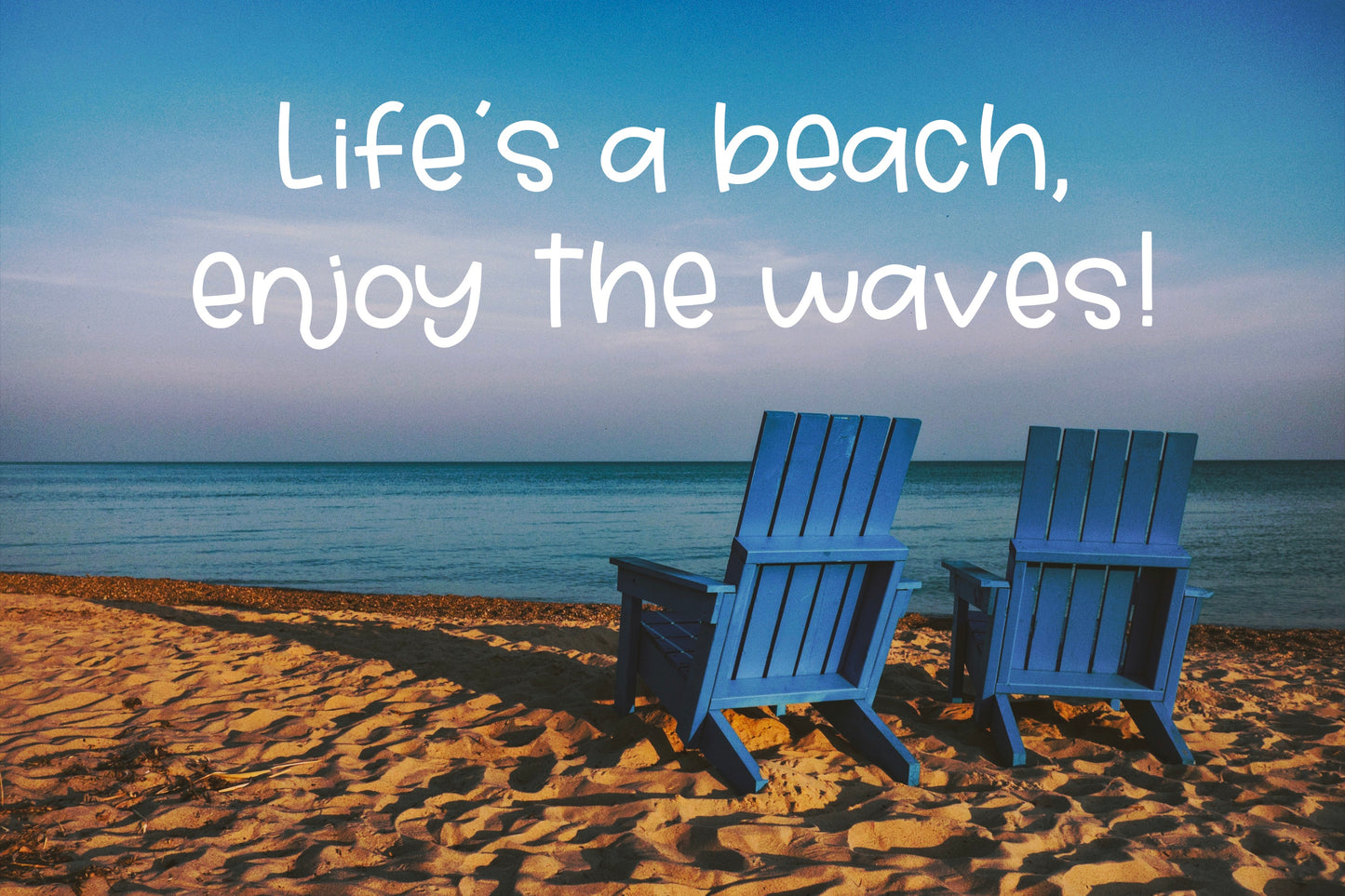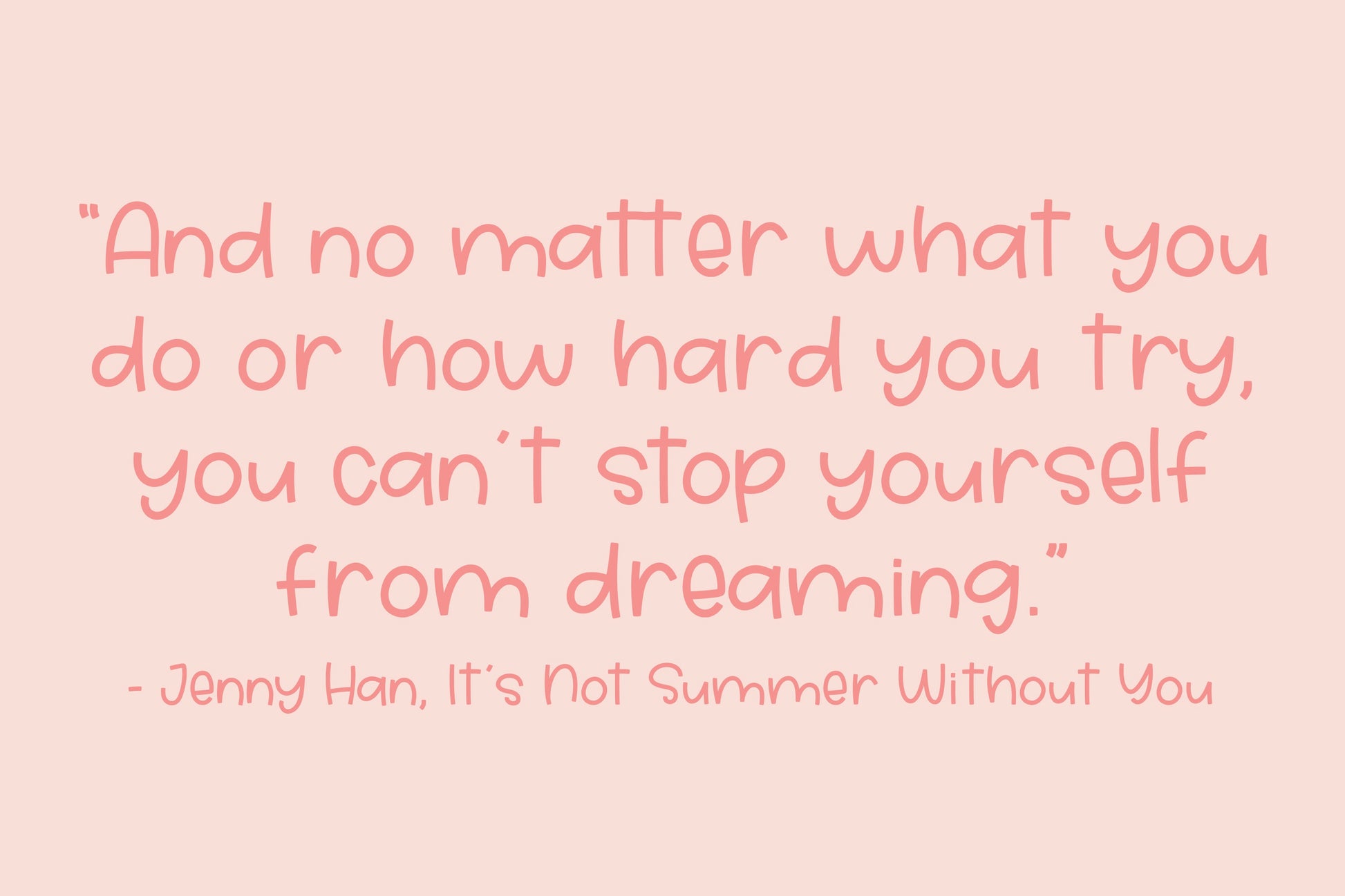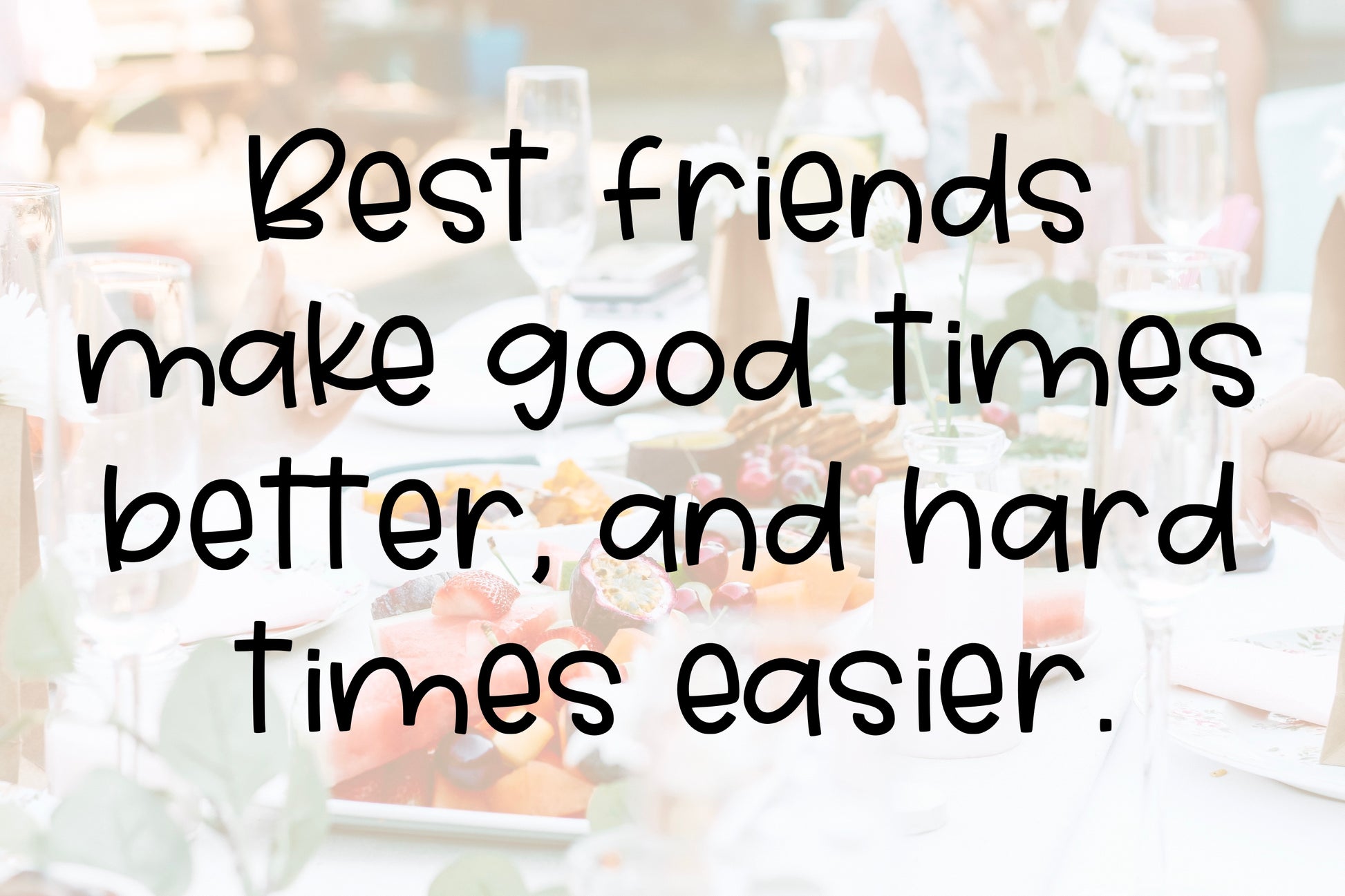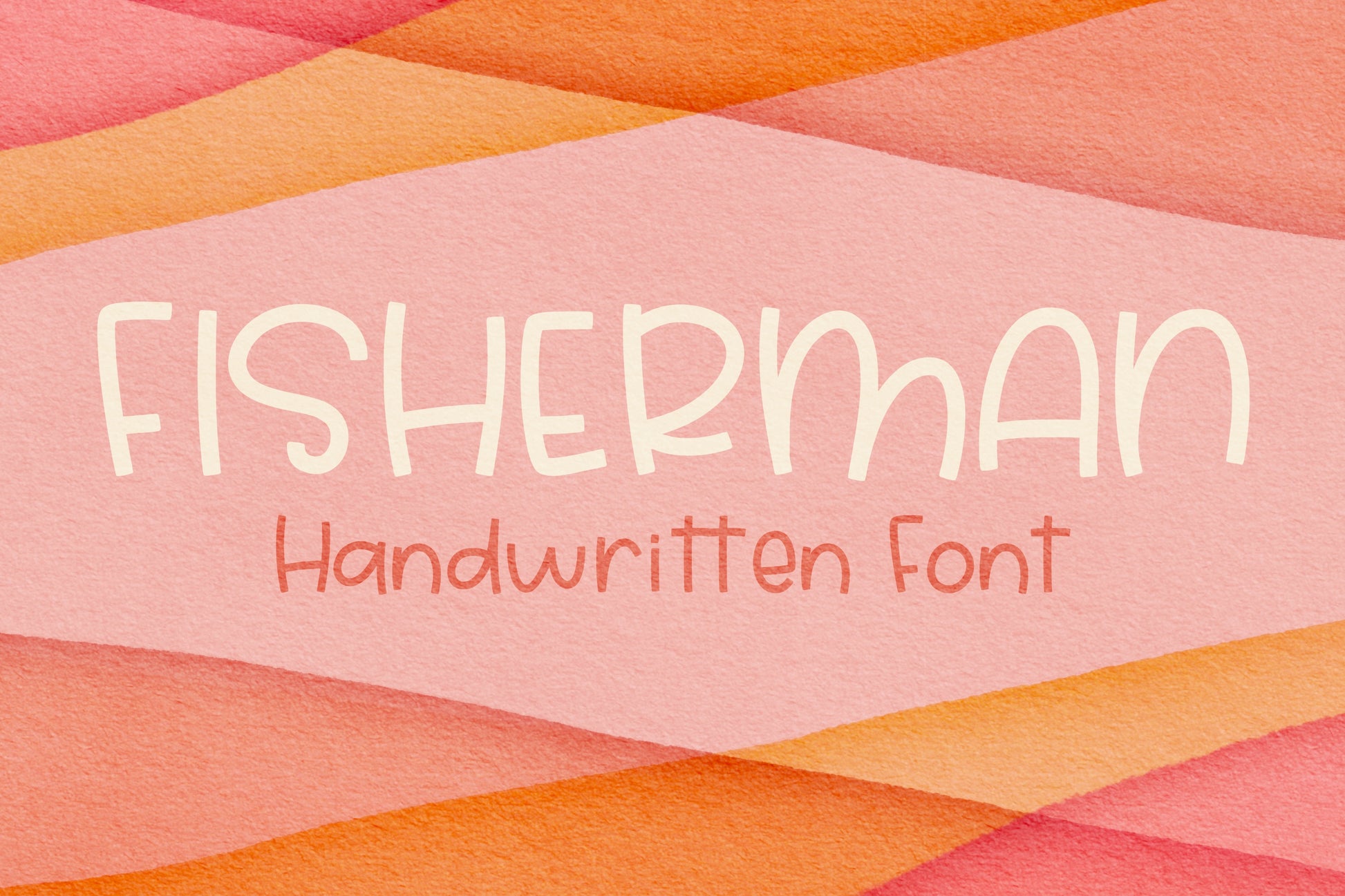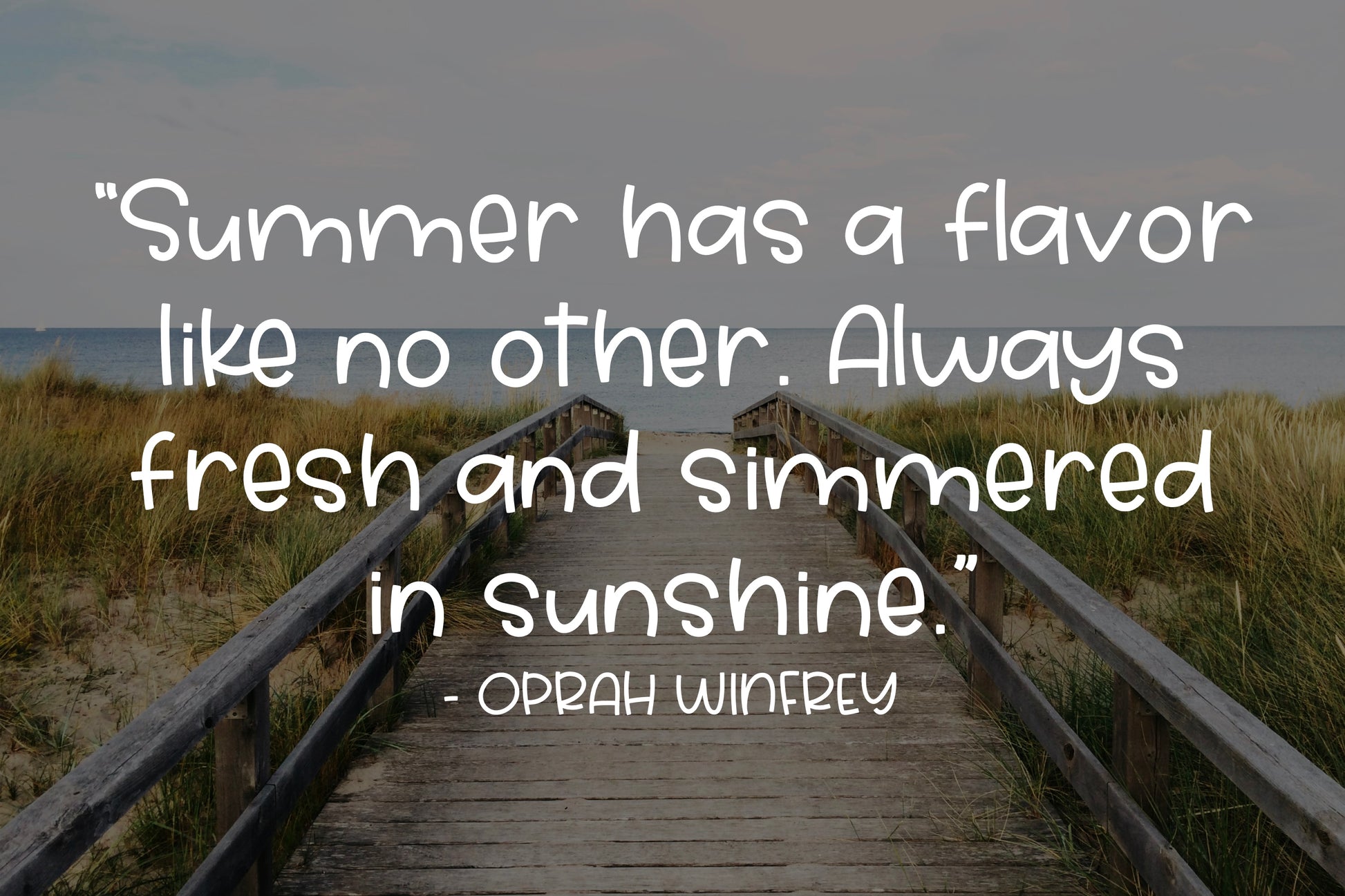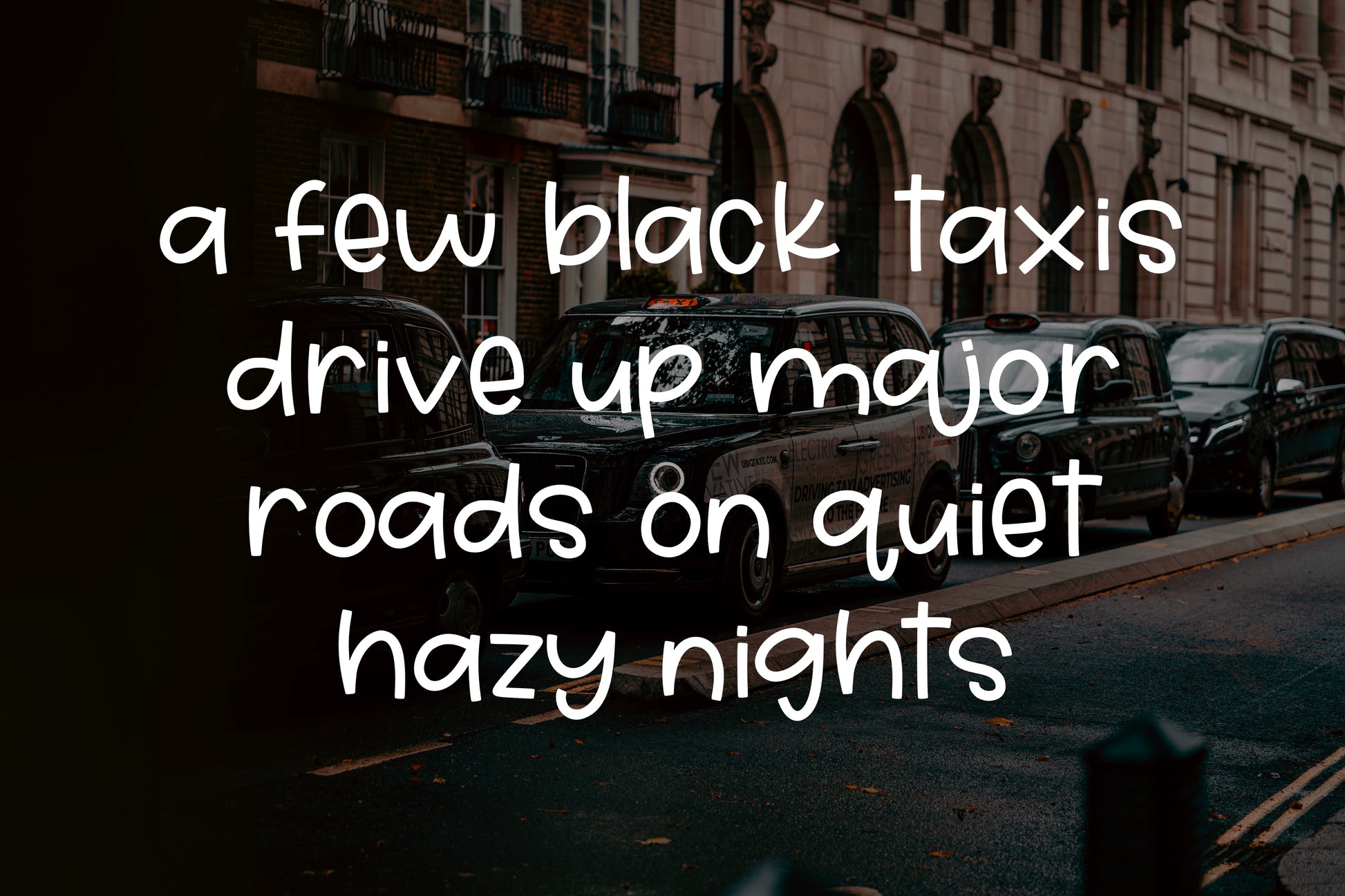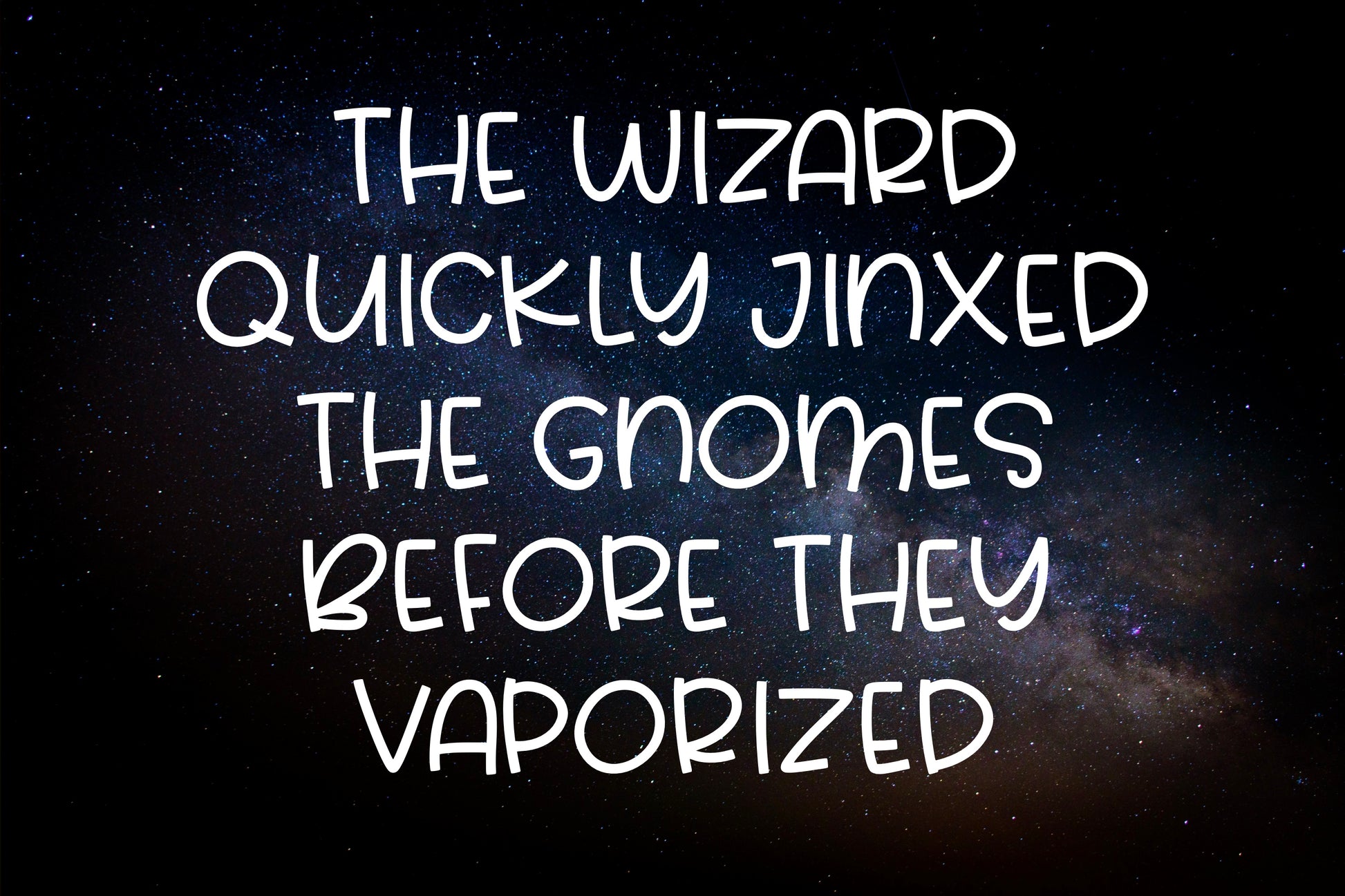
Fisherman Handwritten Font
Introducing the Fisherman handwritten/hand drawn font. This unique font will add a fun, quirky, handmade touch to your design! Perfect for stickers, posters, magazines, t-shirts, signs, logos, note cards, invitations, etc.